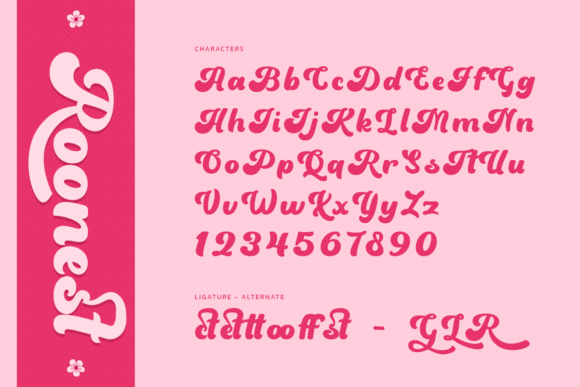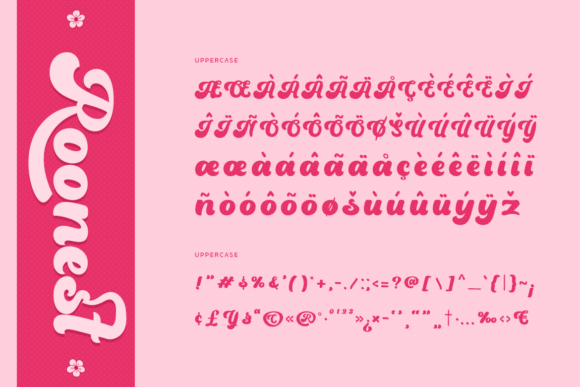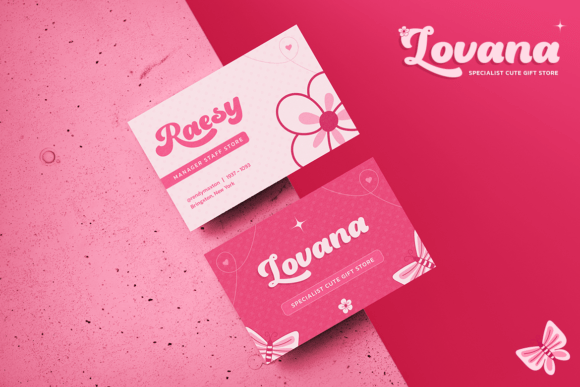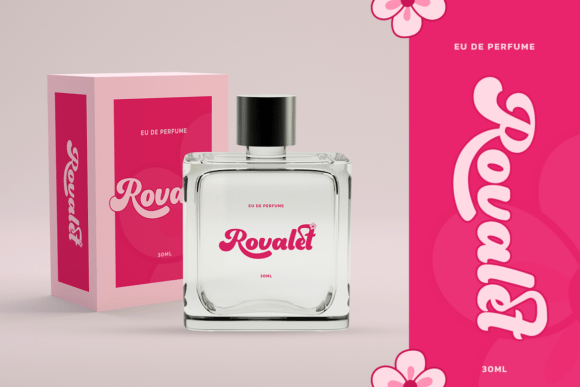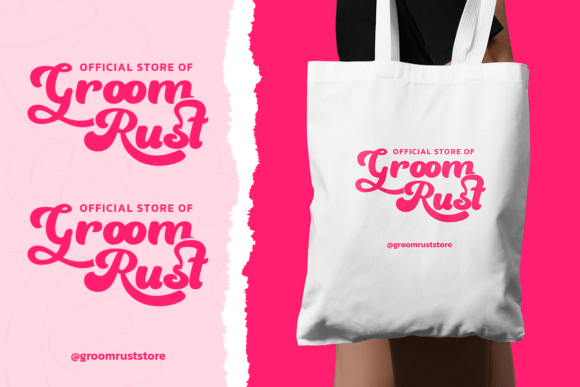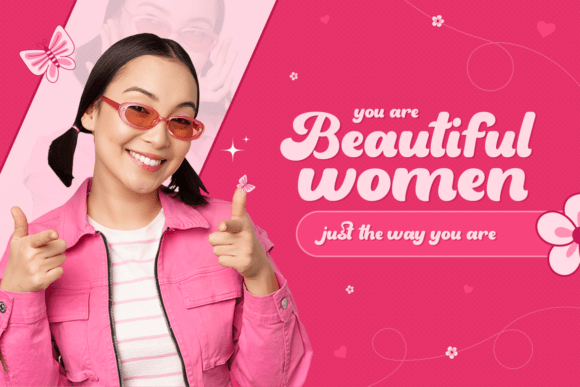
Introduction to Roonest Font
As a designer, have you ever found yourself struggling to convey the perfect tone for a creative project? The moment you’re searching for the right font to make your design pop is a familiar one, and it’s exactly where the Roonest Font comes in – a game-changer for designers looking to elevate their work. With its soft script style, Roonest Font is the perfect resource to add a touch of warmth and approachability to your designs.
Designed with a focus on high-quality details, Roonest Font features smooth curves, connected strokes, and playful swashes that make it an ideal choice for branding, product packaging, and social media graphics. Its friendly and approachable look is sure to capture the attention of your audience, making it a valuable addition to any design resource.
Roonest Font
- Unique characteristics include its clean and modern aesthetic, making it perfect for contemporary design projects.
- Designed to be versatile and adaptable, the Roonest Font is suitable for a wide range of applications, from branding and marketing materials to digital interfaces and publications.
Honest Review: Roonest Font
- ✨ High-quality design: The Roonest Font boasts a clean and modern design that’s perfect for a variety of creative projects.
- ⚠️ Limited font styles: While the Roonest Font is well-designed, it’s limited to a single font style, which may not be suitable for projects that require multiple font variations.
Overall, I’m impressed with the Roonest Font’s design and versatility. While it has some limitations, it’s a solid choice for designers working on creative projects that require a clean and modern aesthetic.